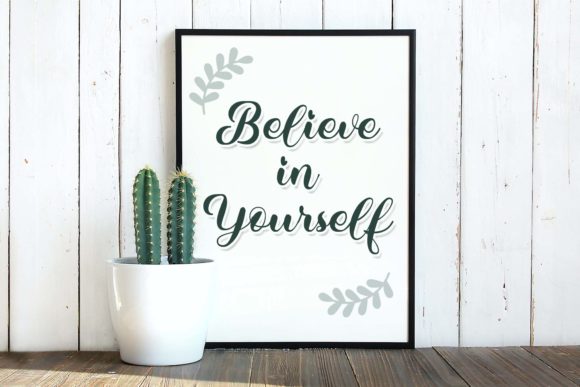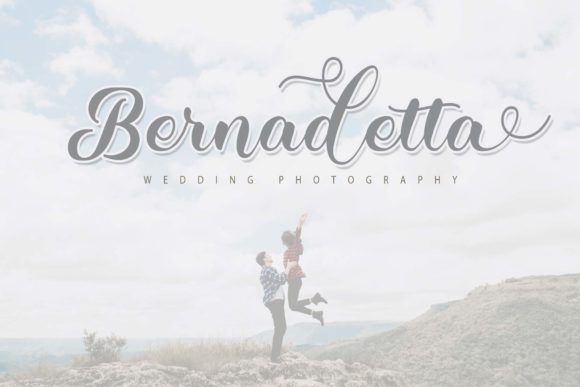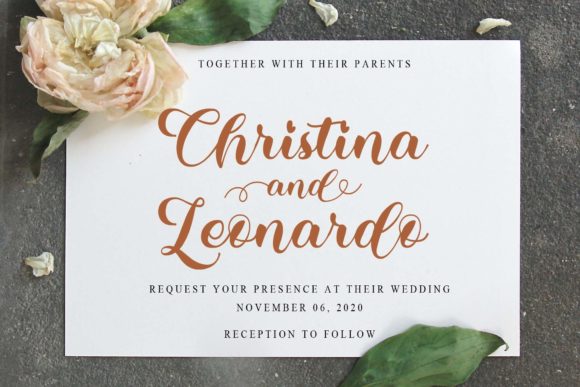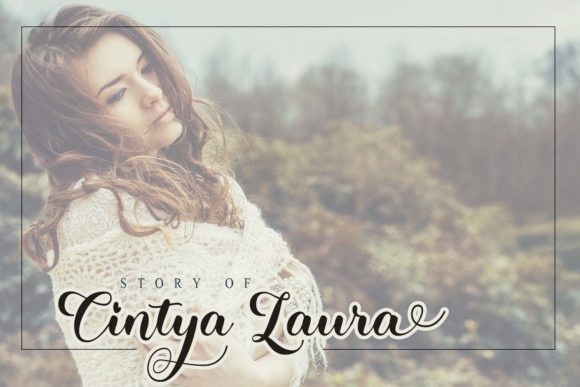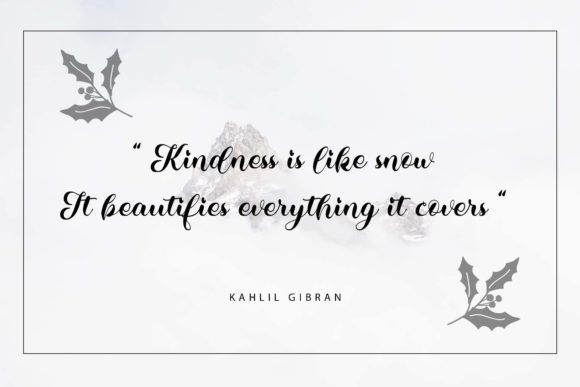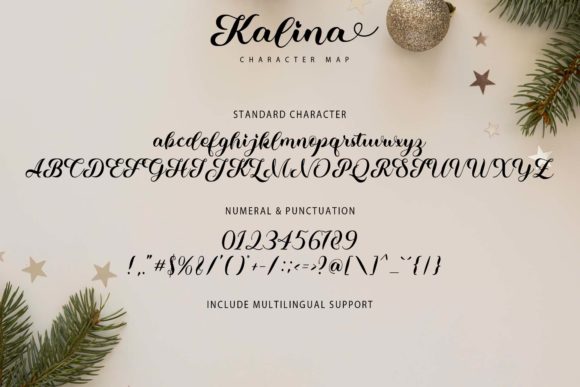
Introduction to Kalina Font
Kalina is a romantic, sweet and romantic script calligraphy font.
It can be used for various purposes such as logos, wedding invitations, headings, t-shirts, letterhead, signage, labels, news, posters, badges and many design projects .